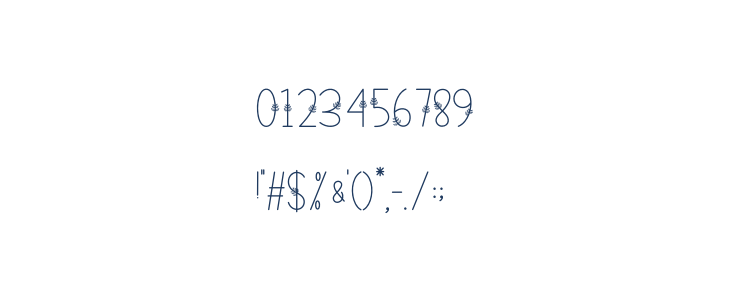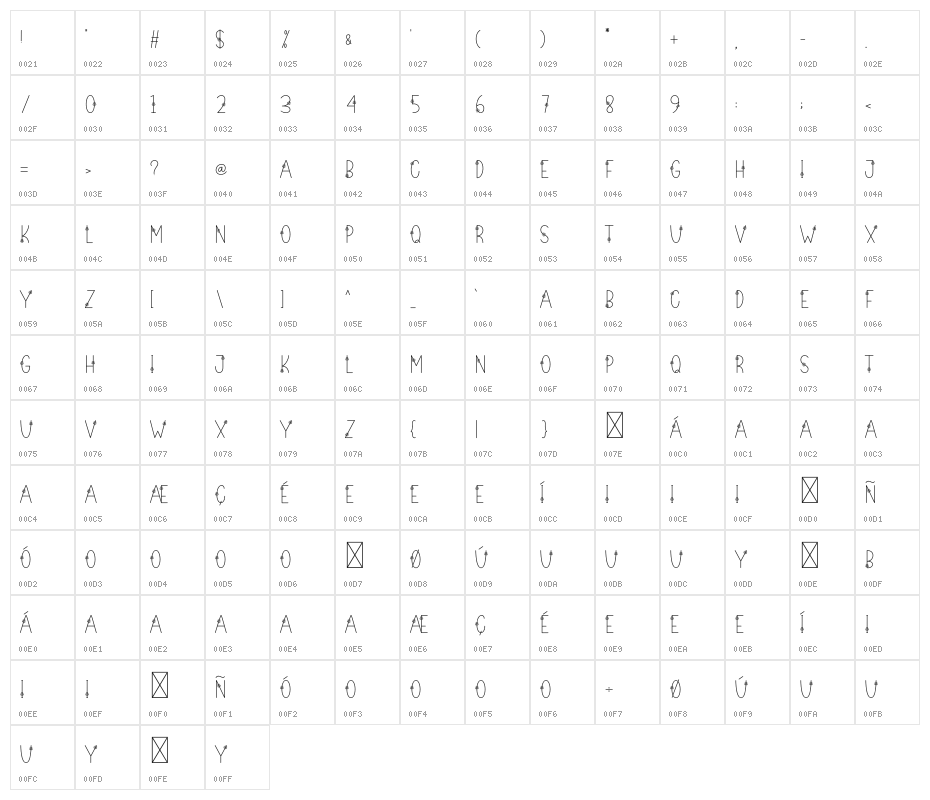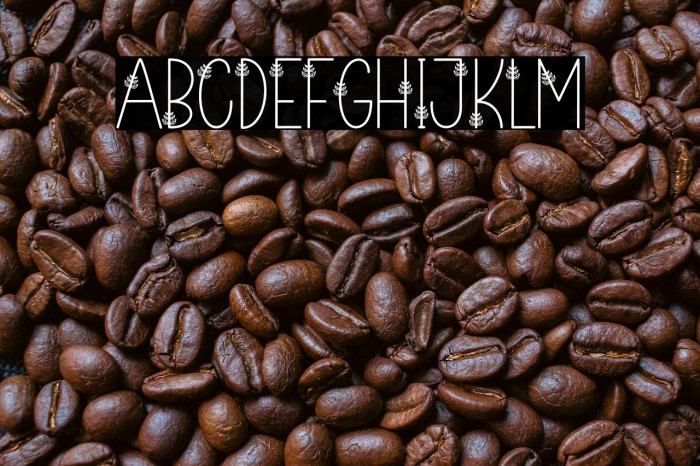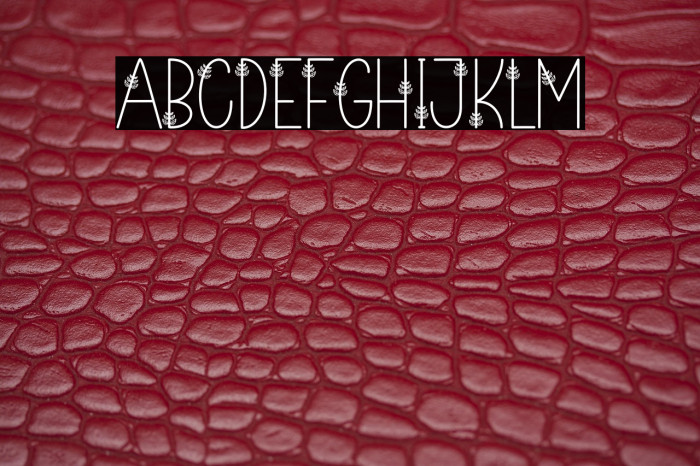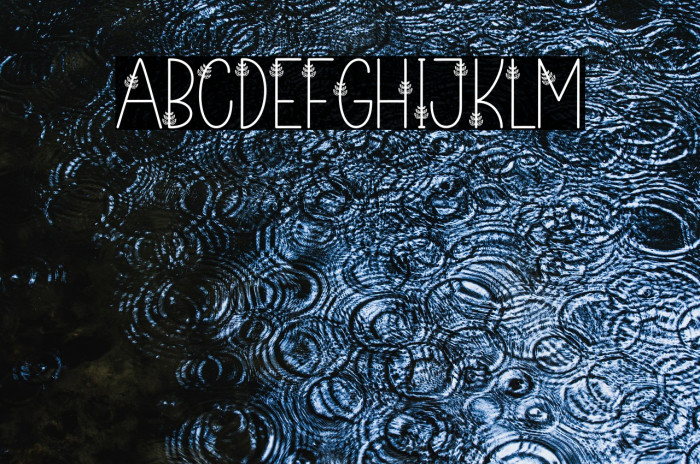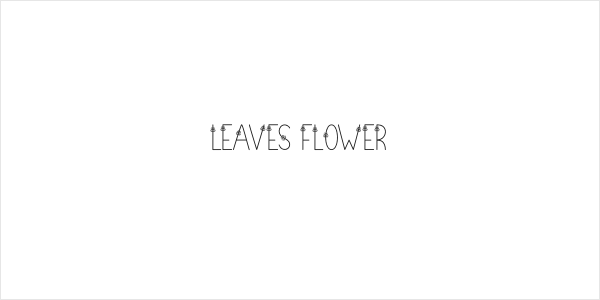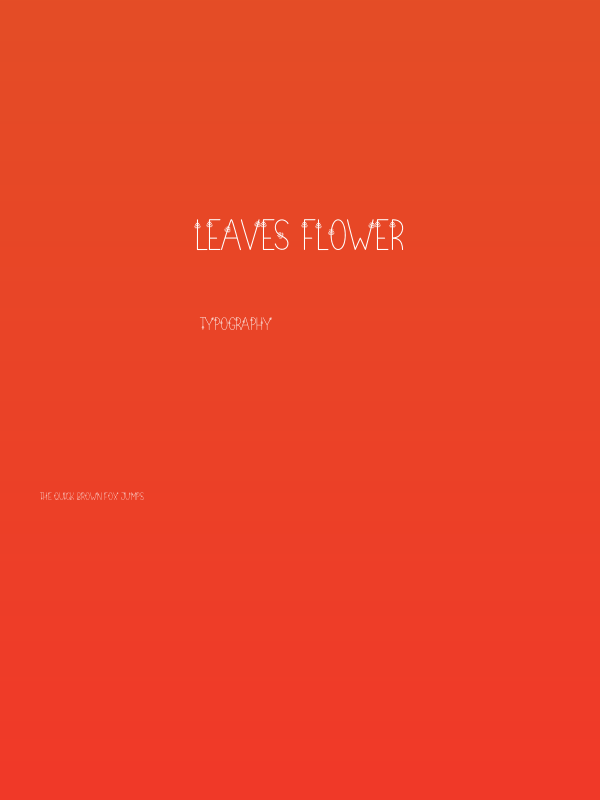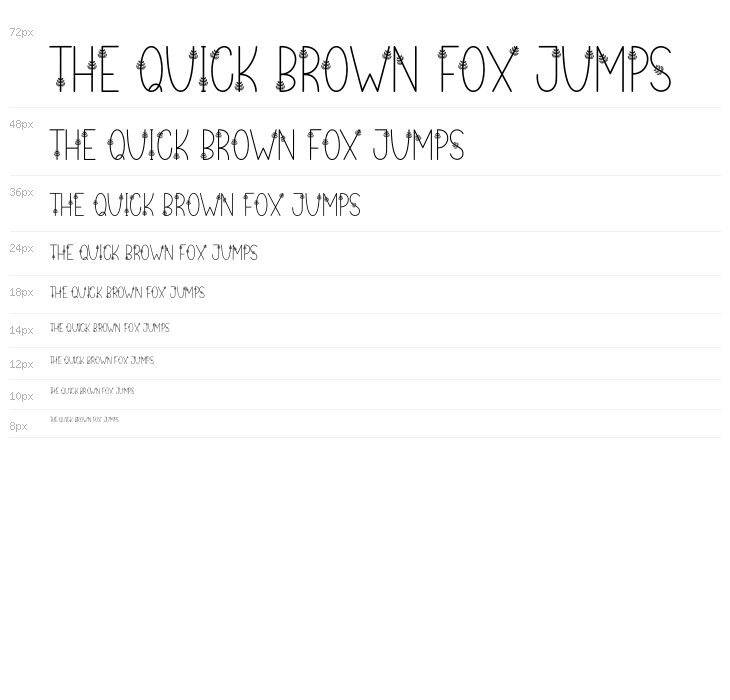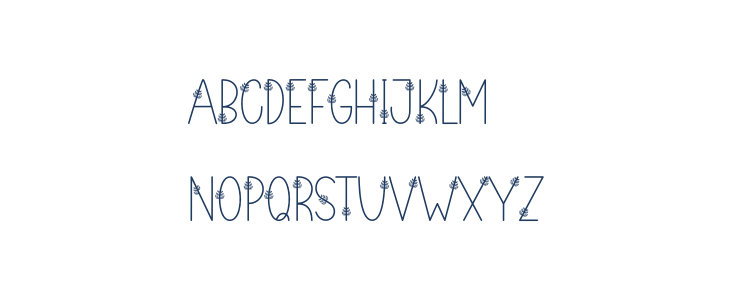
Leaves Flower Font
Leaves Flower Description
This decorative font features a unique design where each character is adorned with leaf and flower motifs, giving it a whimsical and nature-inspired appearance. The letters are tall and slender, with delicate embellishments that add a touch of elegance and playfulness. The overall look is both artistic and organic, making it ideal for projects that require a natural or floral theme. The font maintains a consistent style across uppercase, lowercase, numbers, and special characters, ensuring a cohesive look in any design.
| Proposed Projects | Ideal for wedding invitations, greeting cards, eco-friendly branding, and botanical-themed posters. |